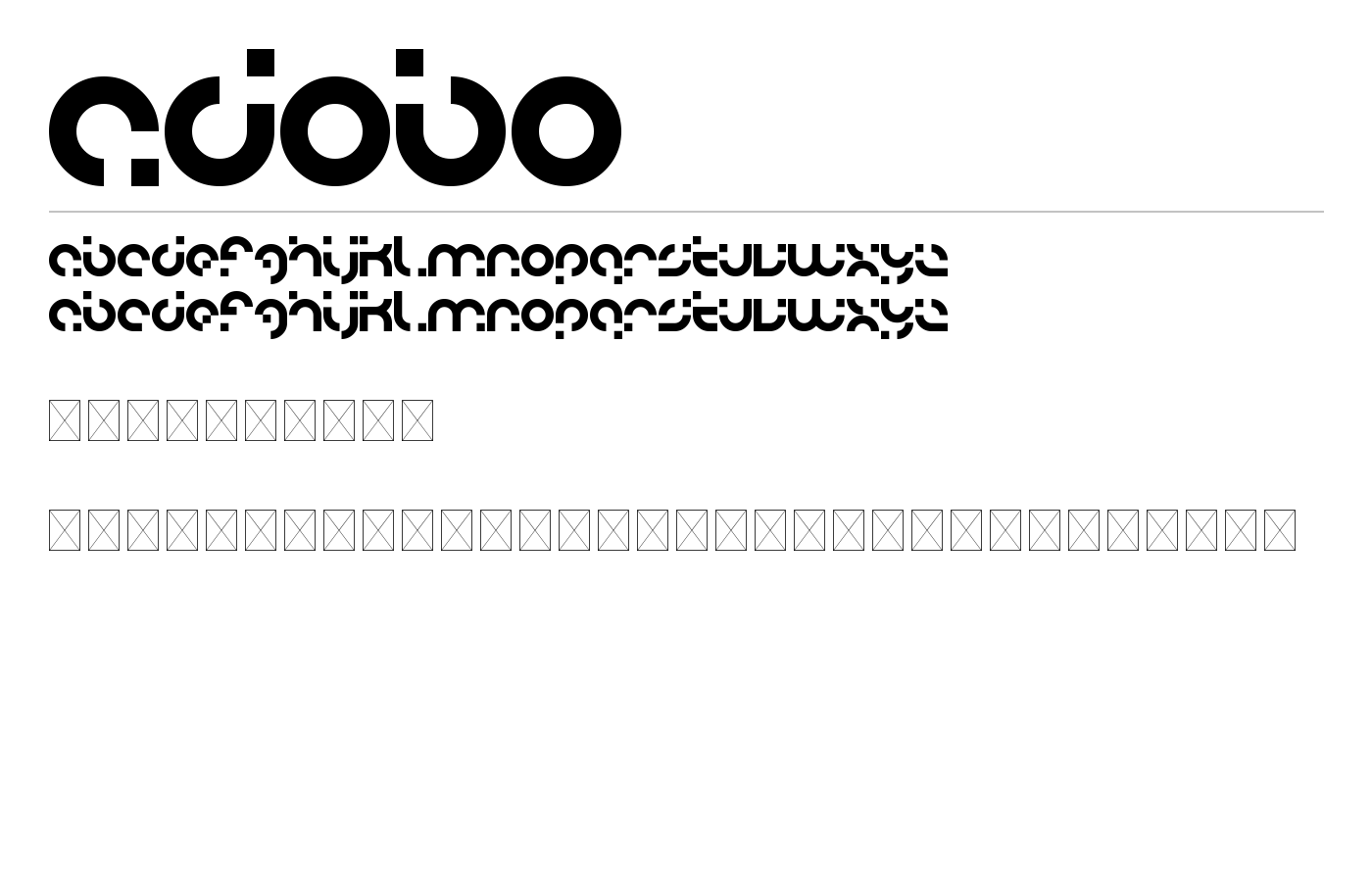
Adobo is a bold, geometric sans serif font with a futuristic and modular design. Its rounded shapes and heavy weight create a striking, playful personality, making it ideal for creative logos, eye-catching headlines, and modern branding that seeks to stand out with a unique, contemporary style.
adobo Font
About adobo Font
| Designer | Jéson Garnica |